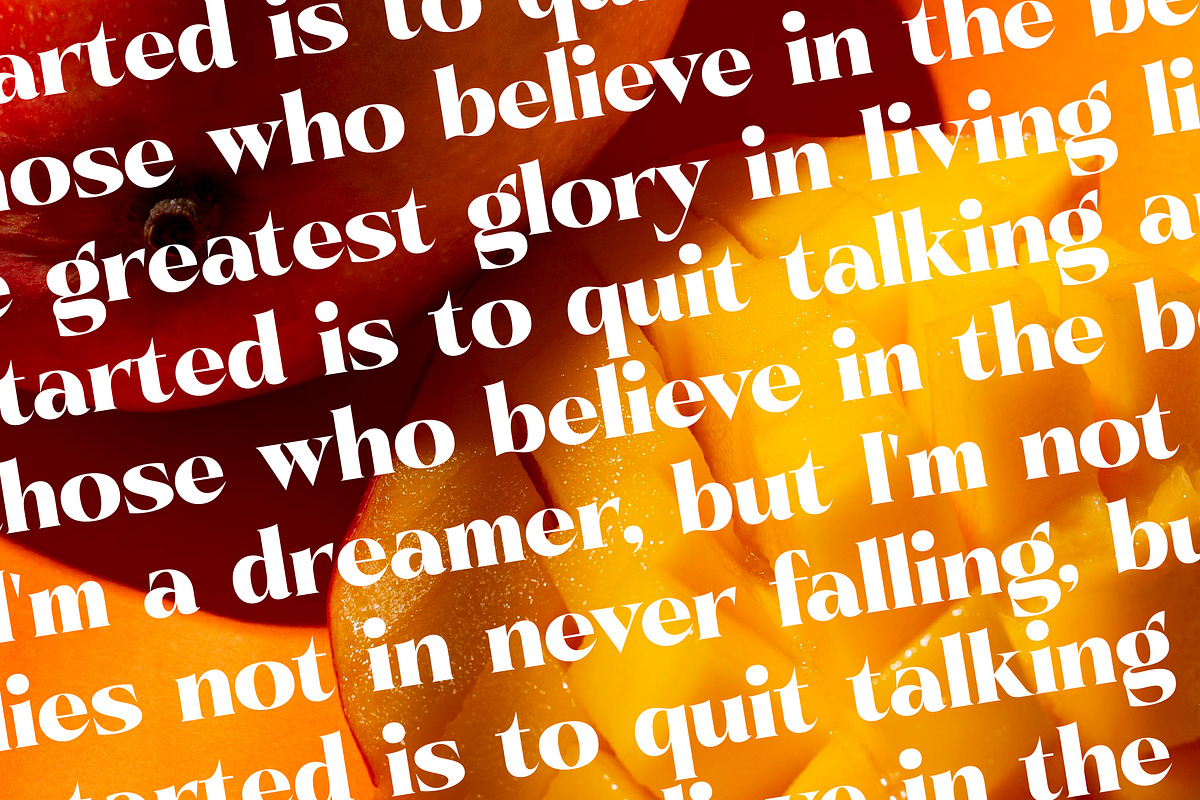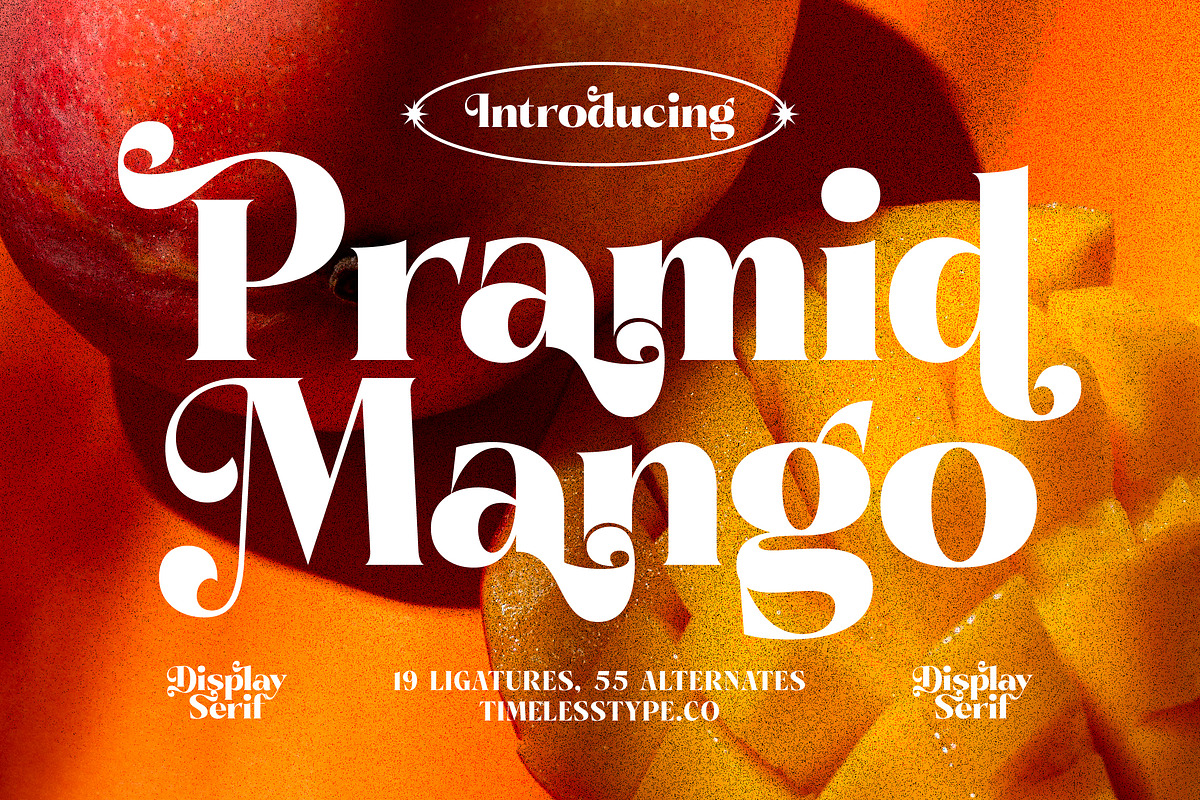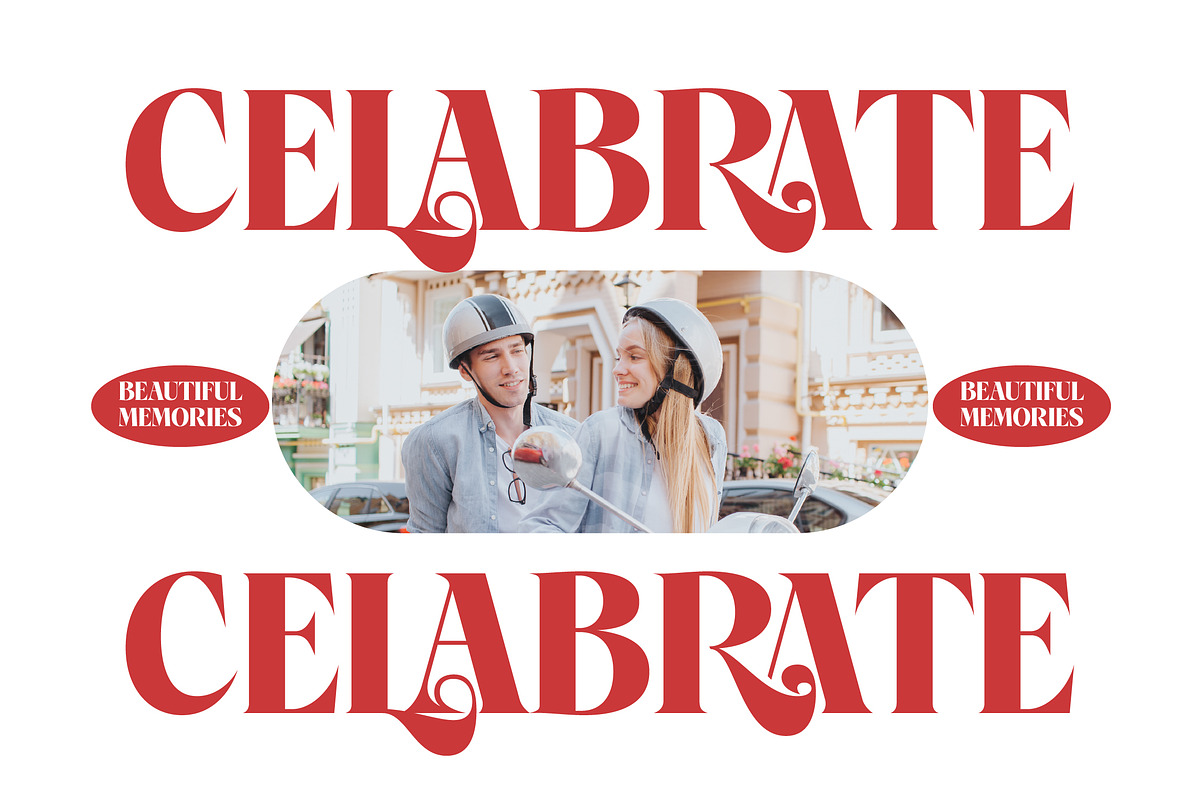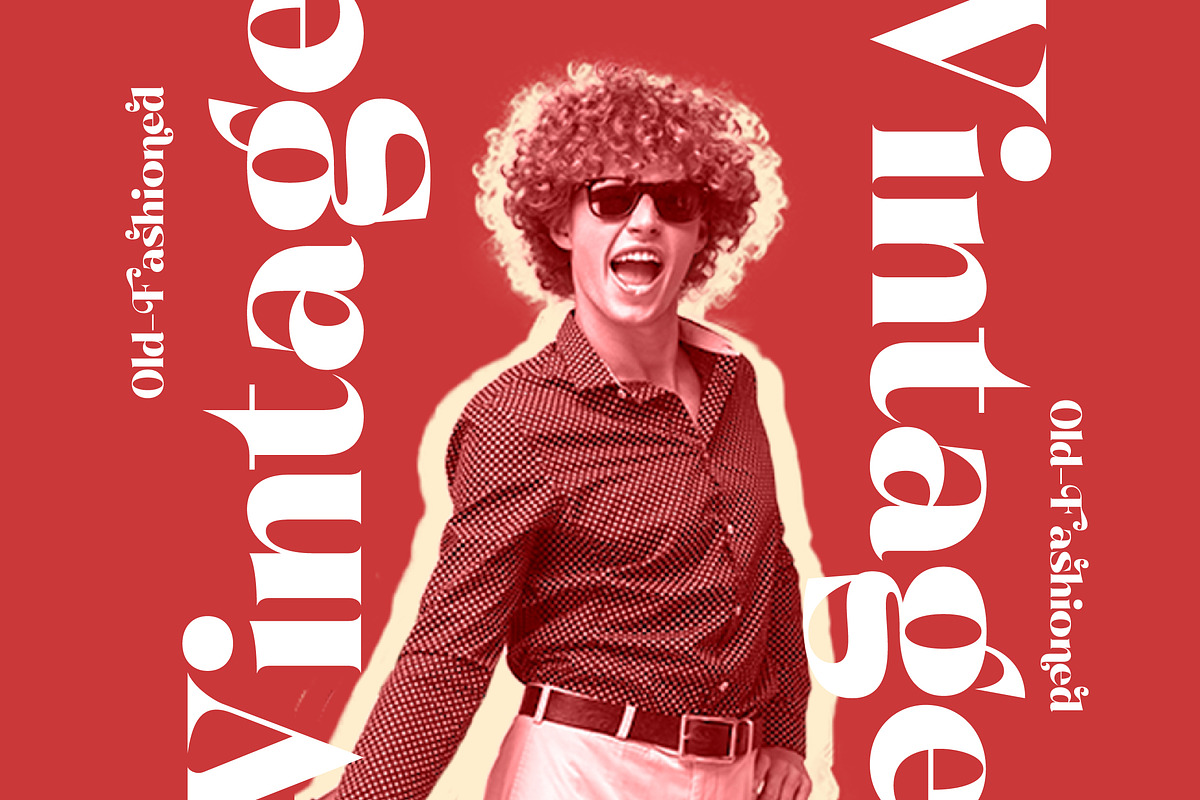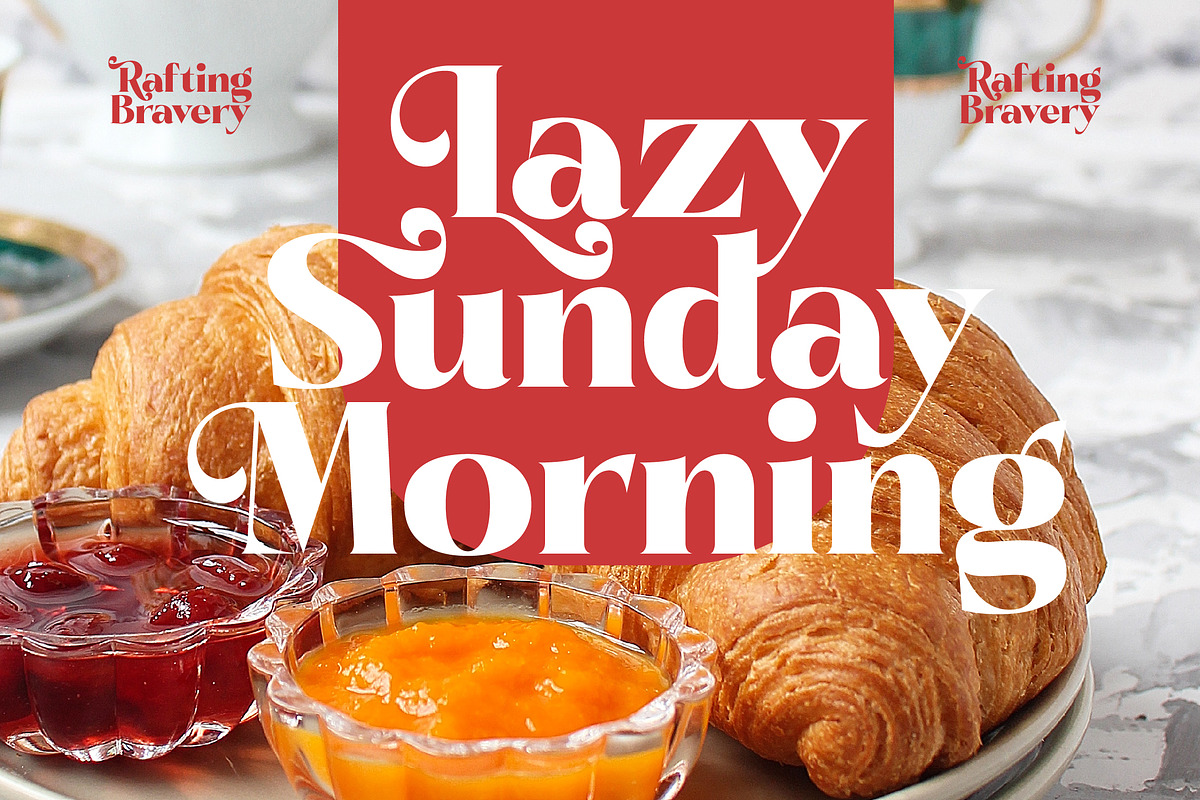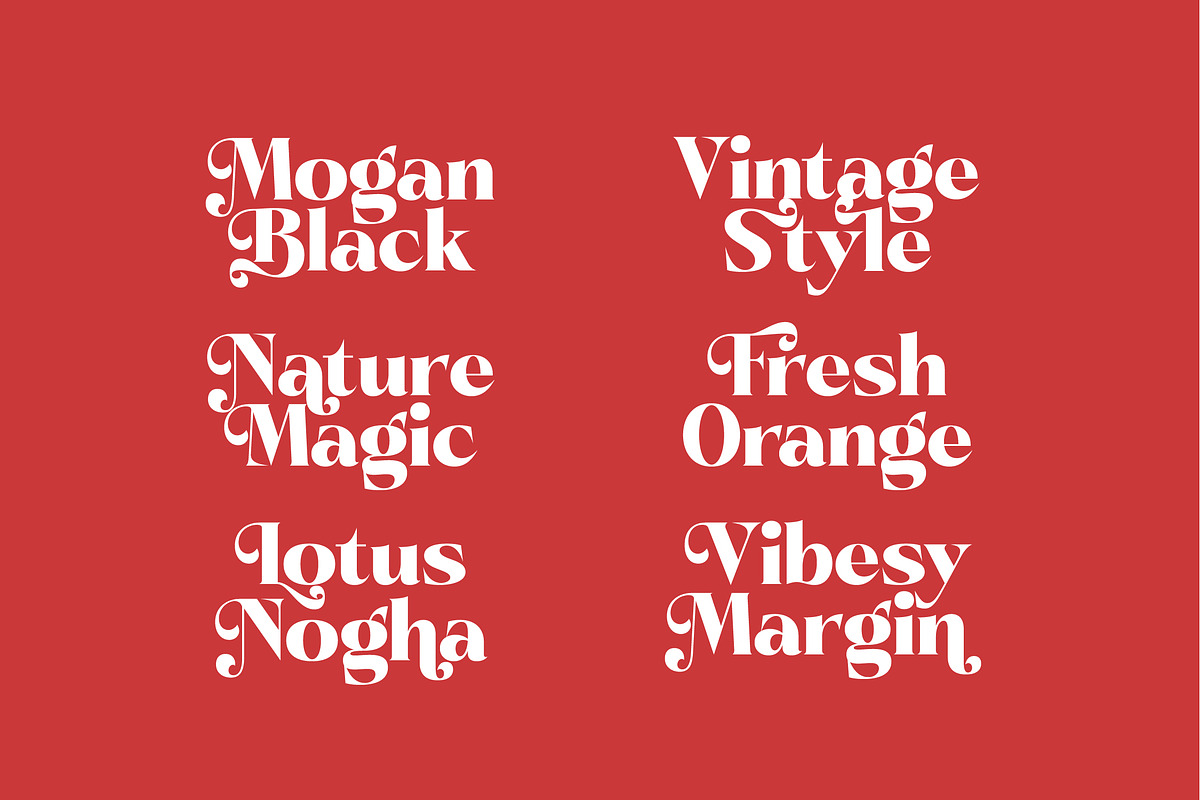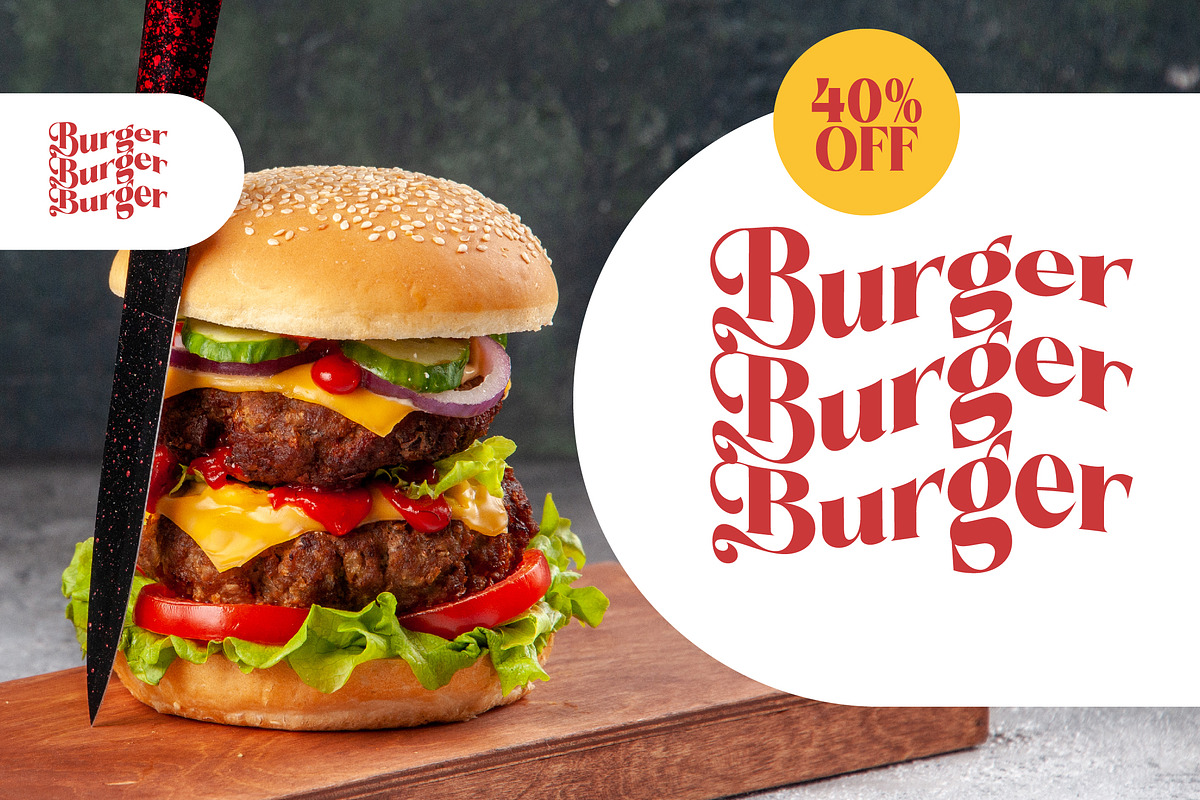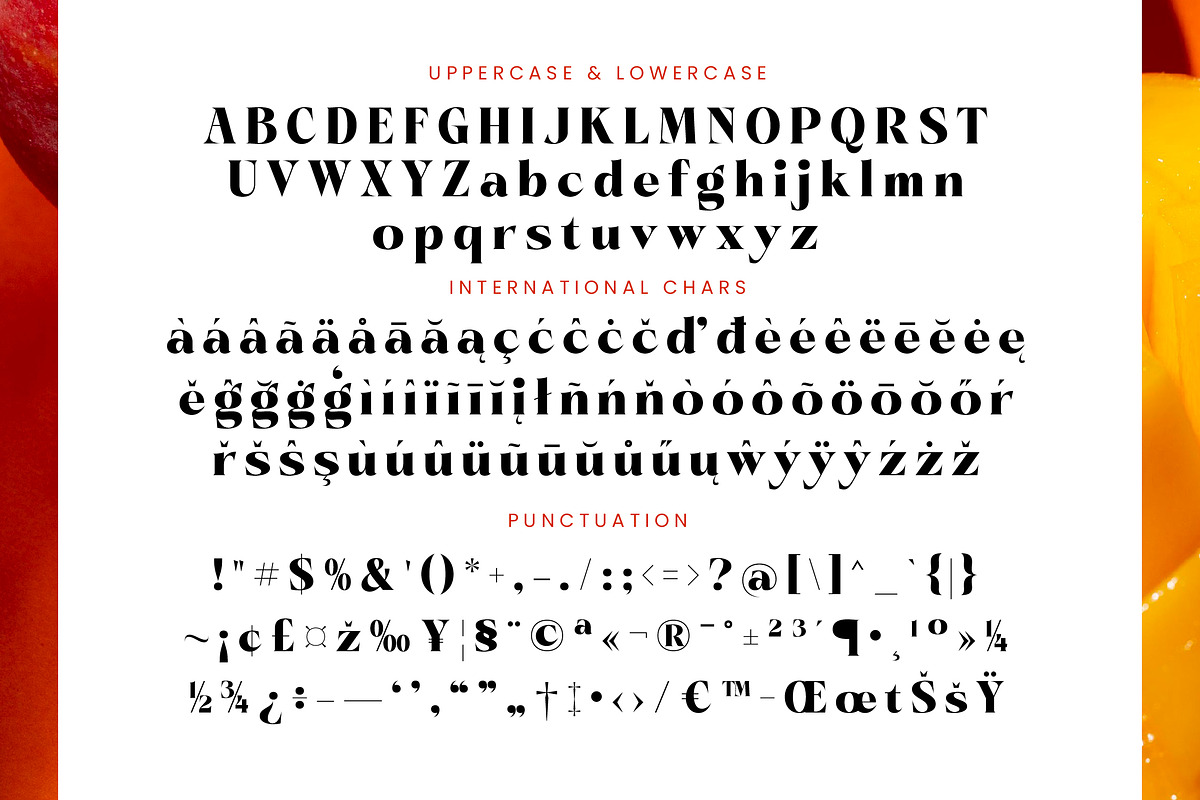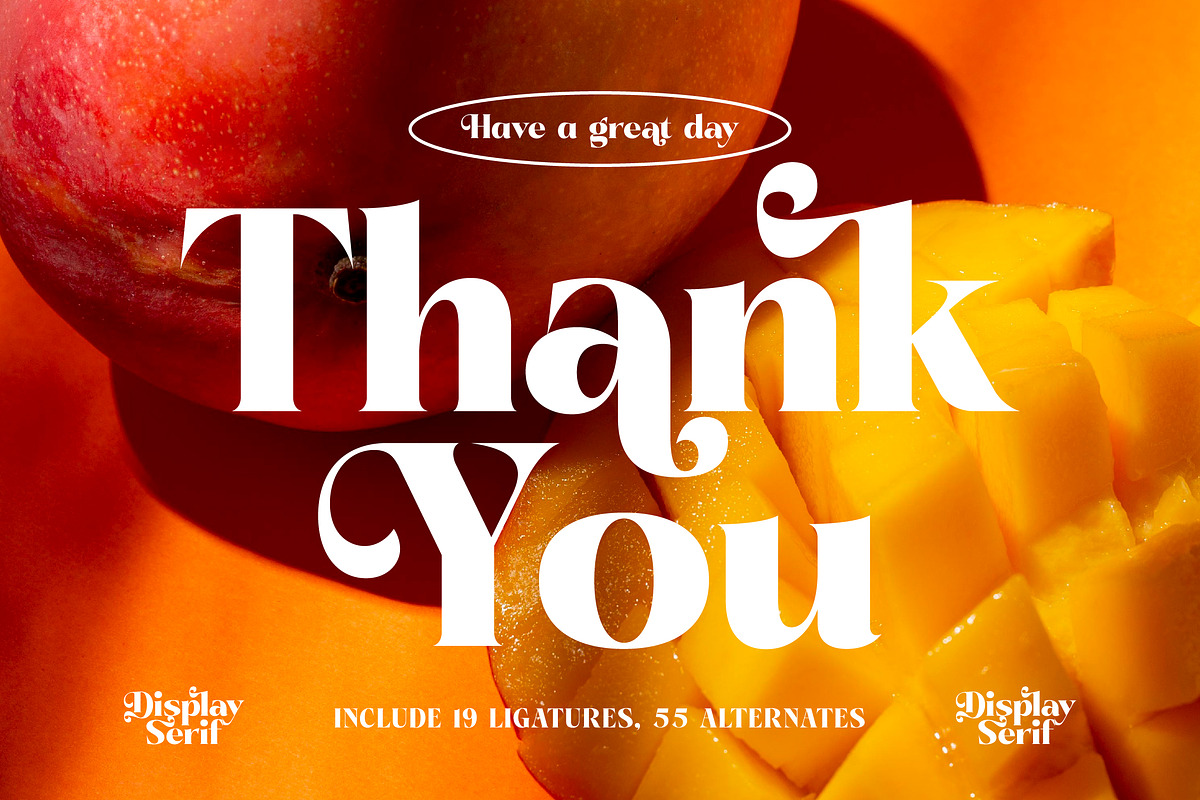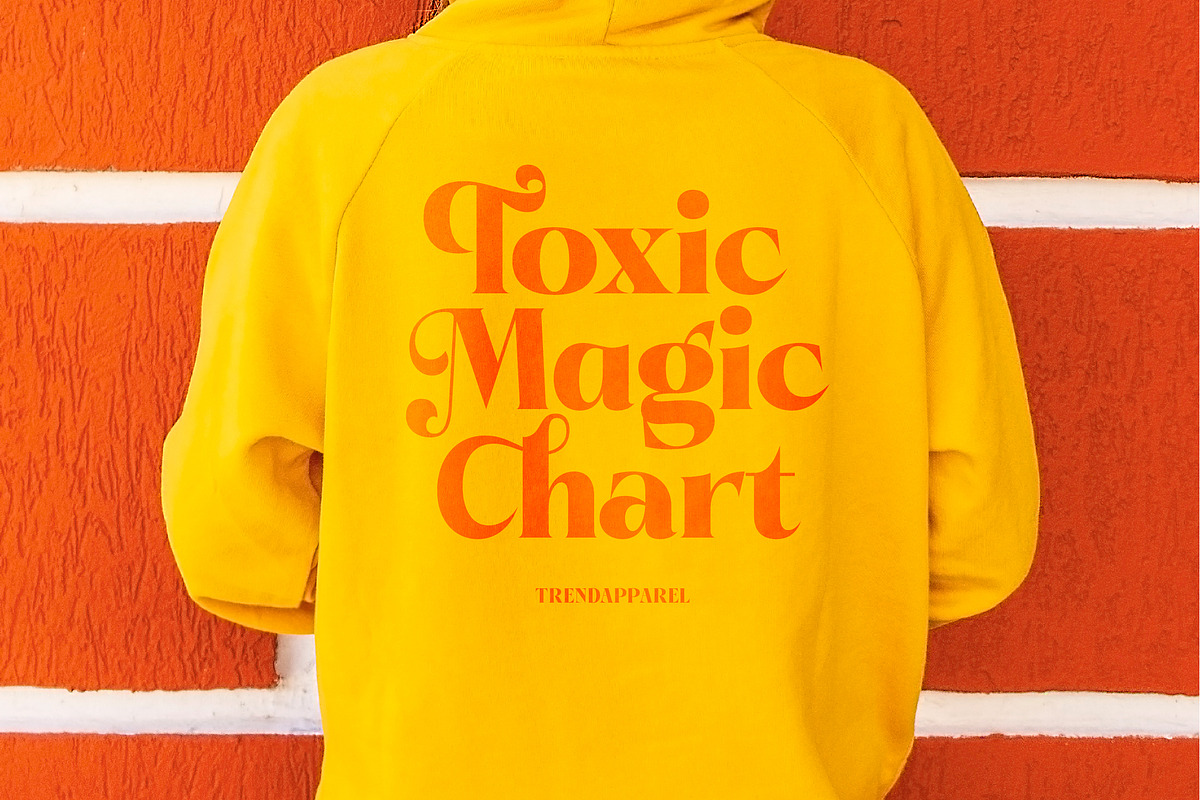
Pramid Mango Modern Display Serif
Elevate your creative vision with the vibrant essence of Pramid Mango, a typeface designed to turn heads and capture hearts. This font blends vintage soul with a contemporary edge, making every character a delicious masterpiece of form and function.
Inspired by the sun-drenched aesthetics of the seventies and the refined elegance of modern editorial spreads, this typeface channels the warmth of a tropical sunset. It evokes a sense of nostalgia while remaining firmly planted in the present, offering a visual journey that is both familiar and excitingly new.
As a modern serif display, it strikes the perfect balance between bold confidence and delicate detail, ensuring your project has a distinct luxury typography feel. The high-contrast serif strokes provide an unmistakable editorial font quality that guarantees a powerful branding impact across any digital or print medium.
Riding the wave of the current modern serif trend, this typeface is an essential tool for creators seeking editorial display fonts that stand out in a crowded market. Its character-driven typography allows designers to tap into the modern-retro aesthetic that dominates high-end fashion and lifestyle layouts today.
From sophisticated logo design to cohesive branding identities, this font is incredibly versatile for editorial layouts and luxury packaging. It adds an air of romance to wedding invitations and a sharp, trendy edge to high-street fashion lookbooks and social media content.
This comprehensive package includes an extensive set of ligatures and alternates to customize your look, alongside beautiful decorative swashes. With full multilingual support and international characters, it is ready for global creative endeavors and professional typesetting.
- Ligature 19 Alternate 55